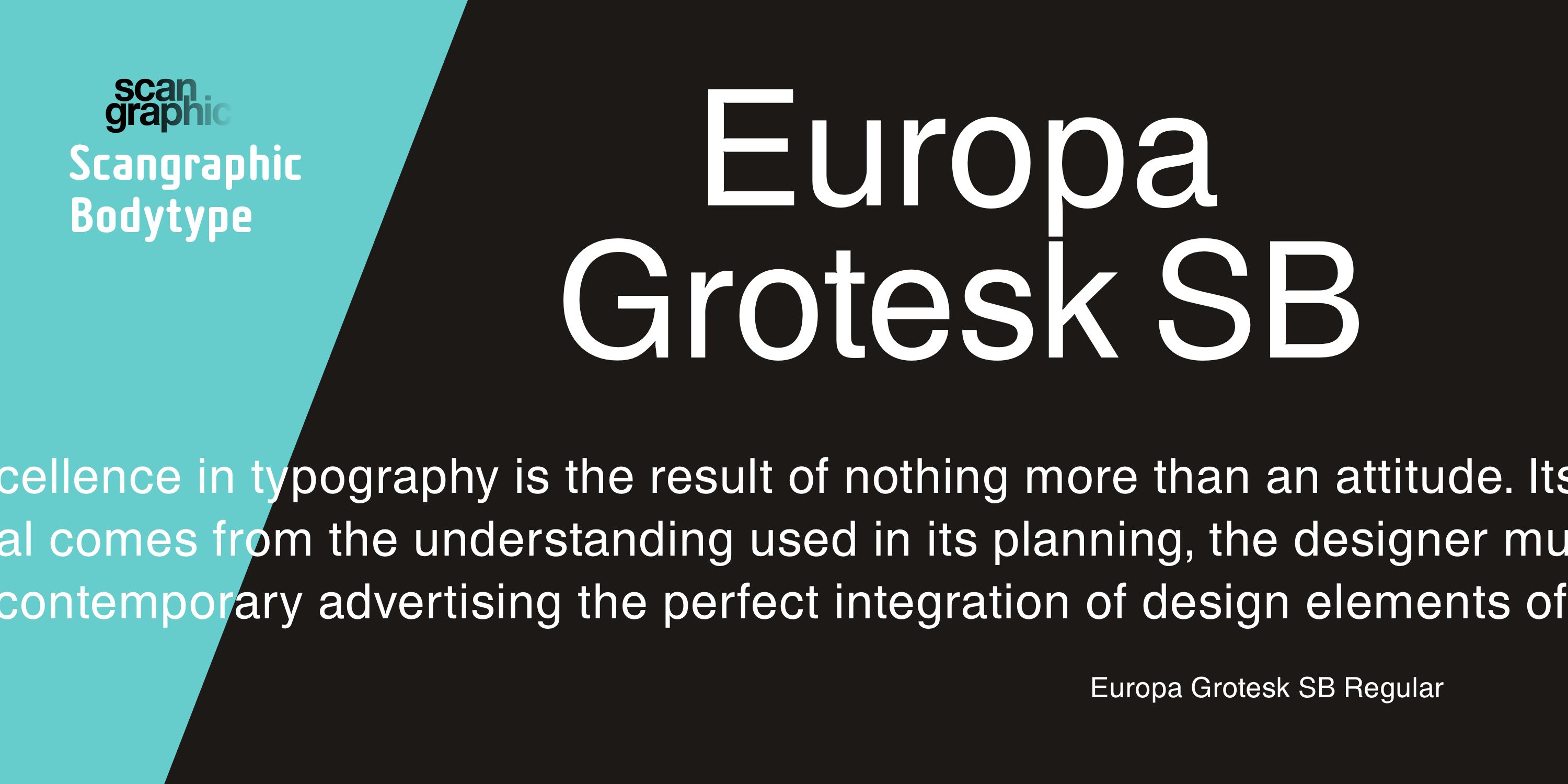
This robust typeface is an excellent choice for projects demanding a clean, modern, and highly versatile aesthetic with a strong, no-nonsense appeal. Imagine it forming the backbone of contemporary corporate branding, providing crisp readability for complex digital interfaces, or adding a sophisticated edge to architectural presentations. Europa Grotesk SB Font is also perfectly suited for designing streamlined websites, crafting impactful logos for tech startups, or creating compelling headlines for publications focused on design, technology, and urban development. Its balanced proportions, clear lines, and straightforward appearance make it an ideal option for any design seeking to convey efficiency, innovation, and a forward-thinking vision, such as precise infographics, smart product packaging, or modern transportation signage.
What makes Europa Grotesk SB Font so exciting? It embodies the timeless principles of grotesque sans-serifs—fonts known for their clarity and utility—while bringing a contemporary feel. The letterforms are characterized by their strong, consistent strokes, open counters, and a harmonious rhythm that ensures excellent legibility across various sizes and mediums. This font doesn’t just present information; it organizes it with an inherent sense of professionalism and modern efficiency. It's engineered to perform exceptionally well in both display settings and extensive body text, making it a true workhorse for designers who prioritize functionality and elegant restraint. The inherent neutrality and adaptable nature of its character shapes make it particularly effective for brands that champion clarity, innovation, and a universally appealing, sophisticated identity. Its design can evoke a sense of streamlined processes and intellectual rigor.
The Europa Grotesk SB Font family typically offers a comprehensive range of weights and styles, providing extensive flexibility for designers to build complete and cohesive typographic systems. You can expect to find a broad spectrum of options, including Thin, Light, Regular, Medium, Bold, and often an Extrabold or Black weight, along with corresponding italic versions. Each weight is meticulously designed to maintain the font's core characteristics while offering distinct visual impacts, allowing for a precise and nuanced typographic hierarchy. These variations enable designers to create well-structured and highly functional text layouts, effectively differentiating between headlines, subheadings, and body text with elegance and precision. The extensive family ensures that Europa Grotesk SB Font can be the singular typeface for an entire brand system, guaranteeing visual consistency and a polished, contemporary appearance across all mediums.
Whether you're developing a groundbreaking digital platform, building a new corporate identity, or simply need a typeface that speaks with quiet confidence and modern elegance, Europa Grotesk SB Font Free Download is an outstanding choice. Its refined design and broad versatility will ensure your message is always delivered with utmost clarity and sophisticated purpose.